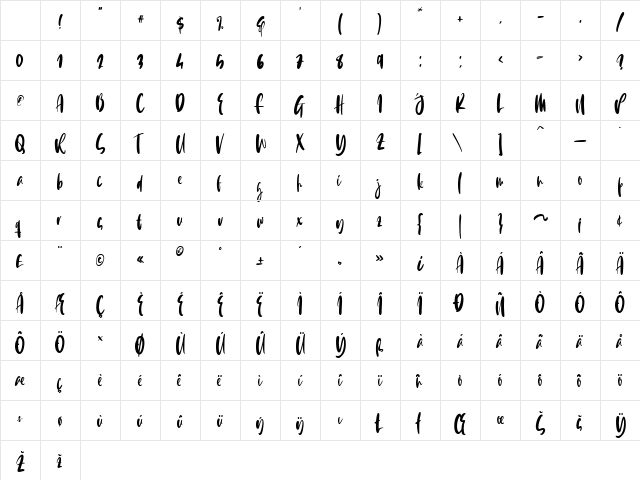
Complete Hello Juliette Regular glyph index. Displaying only characters natively supported by Hello Juliette Regular font.
Hello Juliette is a composed and adaptable typeface that performs quietly and consistently across a wide range of design contexts.